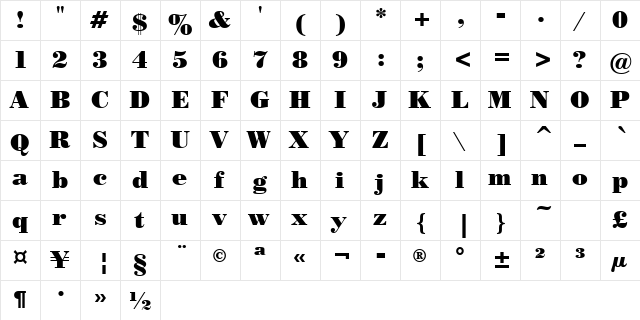
PosterBodoniGreek BT Roman
Design Context for PosterBodoniGreek BT Typeface
PosterBodoniGreek BT takes a measured approach to typography — its balanced proportions and neutral character make it a reliable workhorse for both digital and print work.